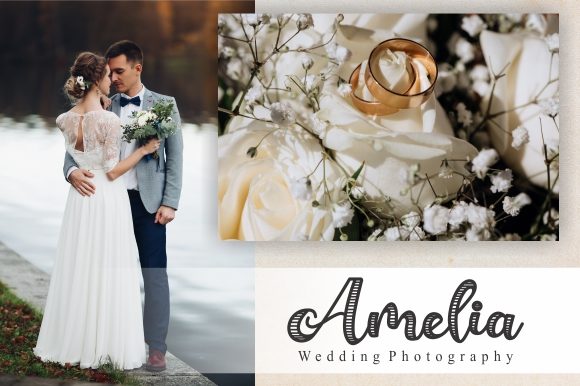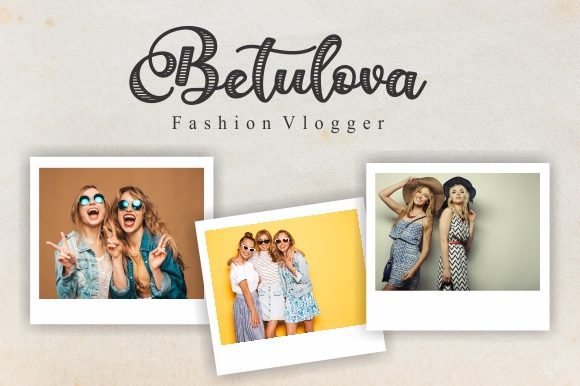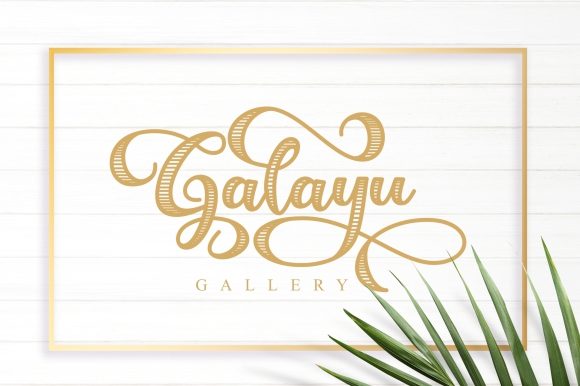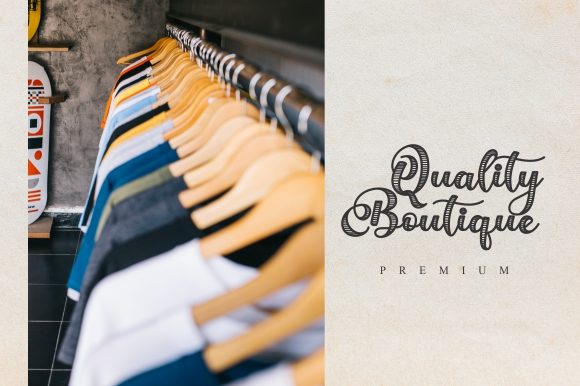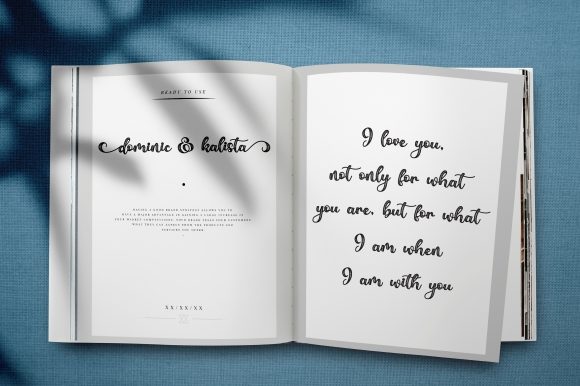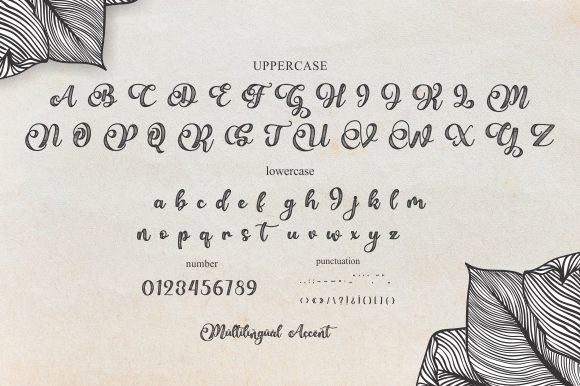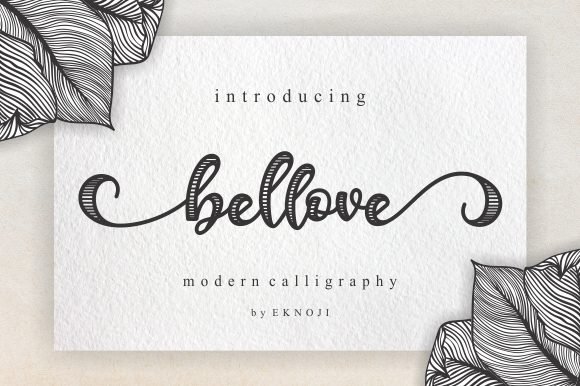
The Perfect Font to Give Your Designs a Personal Touch
Have you ever stared at a blank design canvas, trying to come up with the perfect font to bring your creative vision to life? You know that feeling when you finally find ‘the one’ that makes everything fall into place? That’s exactly what happens when you discover the Bellove Font.
| 👤 Author | EKNOJI |
Bellove Font is a charming, casual handwritten font designed to make your designs stand out. Its friendly feel is perfect for branding, headings, wedding designs, invitations, signatures, logos, labels, and much more! Whether you’re a seasoned designer or just starting out, this font is sure to elevate your projects to the next level. Its versatility and charm make it a valuable addition to any designer’s toolkit, and we can’t wait to see what amazing creations you’ll come up with using the Bellove Font.
Bellove Font Key Features
- Unique Characteristics: Bellove Font features a unique blend of modern and vintage elements, with intricate details and subtle flair, making it perfect for designers seeking a distinctive look.
- Character Set: The font includes a comprehensive character set, covering Latin, Cyrillic, and Greek alphabets, as well as punctuation and symbols, making it suitable for a wide range of languages and applications.
Bellove Font Review
I recently had the chance to work with the Bellove font, and I must say, it’s a unique and eye-catching choice. ✨ One of the things that stood out to me was the elegant and sophisticated feel it brings to any design project. The font’s sleek lines and refined curves make it perfect for luxury brands, fashion magazines, or any project that requires a touch of high-end sophistication.
- ✨ Elegant and sophisticated feel
- ✨ Perfect for luxury brands, fashion magazines, or high-end designs
- ✨ Beautifully crafted with sleek lines and refined curves
However, as with any font, there are some limitations to consider. ⚠️ One of the main concerns is that Bellove can be quite challenging to read, especially at smaller font sizes. This may not be ideal for projects where clarity and legibility are top priorities.
- ⚠️ Can be challenging to read at smaller font sizes
- ⚠️ May not be ideal for projects requiring high clarity and legibility
Overall, I’d say Bellove is a great choice for designers looking to add a touch of sophistication and elegance to their projects. While it may not be suitable for every project, it’s definitely worth considering for those that require a high-end, luxurious feel.
Some tips to get the most out of Bellove Font include:
- Use it for creative and artistic projects.
- Combine it with bold and italic font styles for emphasis.
- Experiment with different font sizes and colors.
Common use cases for Bellove Font include:
- Logo design.
- Infographics.
- Brochures and flyers.
Alternatives to Bellove Font for Designers
Comparison to Bellove Font: While both fonts are elegant and luxurious, Playfair Display has a more classic and traditional feel, whereas Bellove Font has a more modern and minimalist approach.
Q: What is the character set and language support for Bellove Font?
Bellove Font includes a comprehensive character set that supports a wide range of languages, including Latin, Cyrillic, and Greek. It also includes a range of punctuation and symbol characters. For detailed information on language support, please refer to the font’s documentation or contact the font vendor.